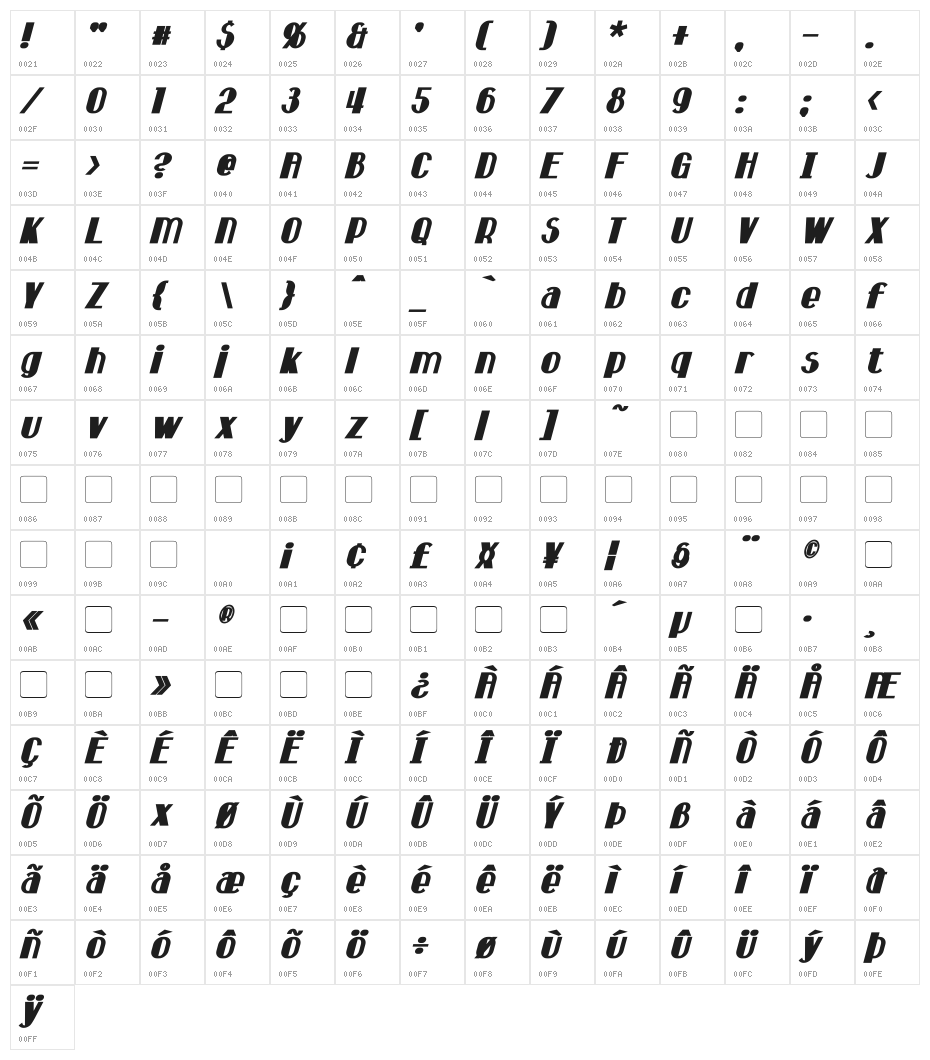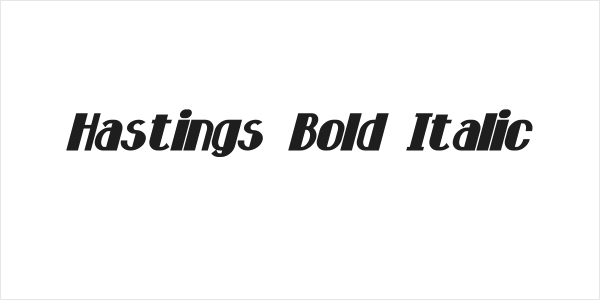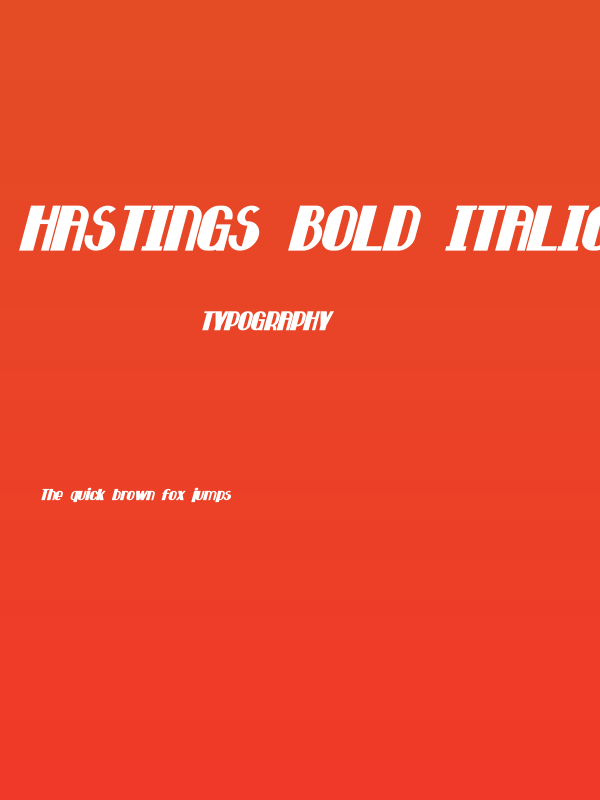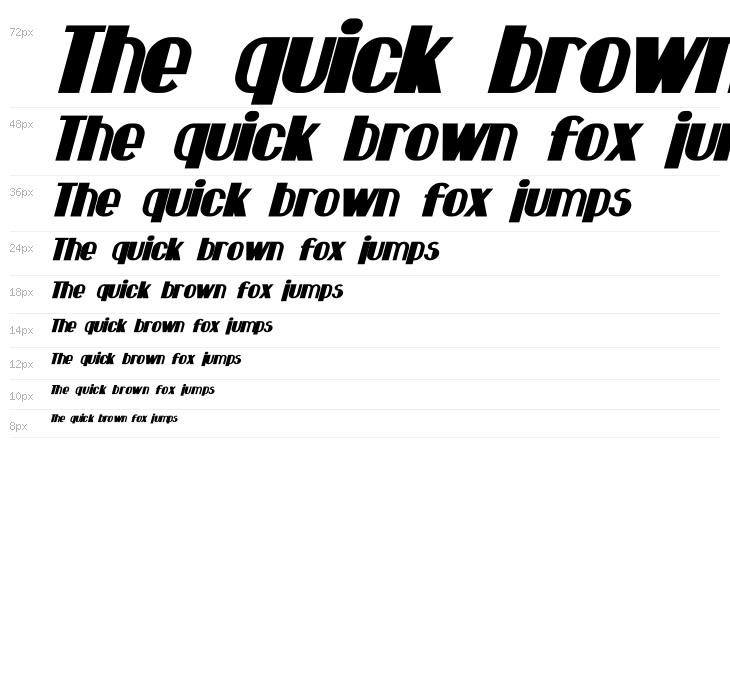
Hastings Bold Italic Font
Hastings Bold Italic Description
This font features a bold and italicized style, characterized by its strong, dynamic presence. The letters are slanted, adding a sense of motion and energy. The strokes are thick and consistent, providing a robust and impactful appearance. The uppercase letters are tall and commanding, while the lowercase letters maintain a cohesive flow. The numbers and special characters are designed to match the boldness and slant of the alphabet, ensuring uniformity across all characters. This font is ideal for making a statement, with its bold italic style drawing attention and conveying a sense of urgency or importance.
Proposed ProjectsIdeal for headlines, posters, branding, and advertising where a strong, impactful presence is needed.